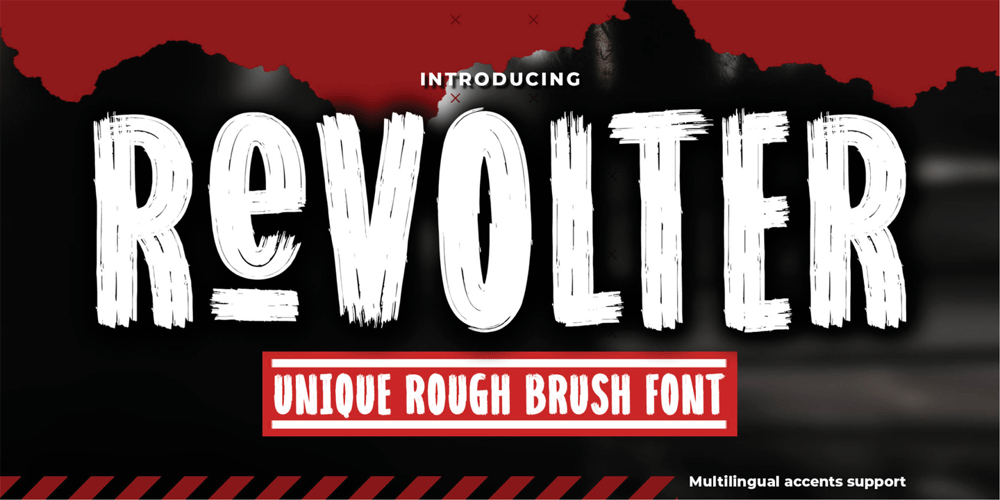
Revolter
Revolter font
Revolter Font Family was designed by Abdul Malik Wisnu, Anang Fibriyanto and published by Gassstype. Revolter contains 1 styles and family package options. Here comes a New font,Introducing Revolter It’s Unique Rough Brush Font is a Authentic Style and classy style, this font is great for your creative projects such as watermark on photography, and perfect for logos & branding, invitation,advertisements,product designs, stationery, wedding designs,label ,product packaging, special events or anything that need handwritting taste.